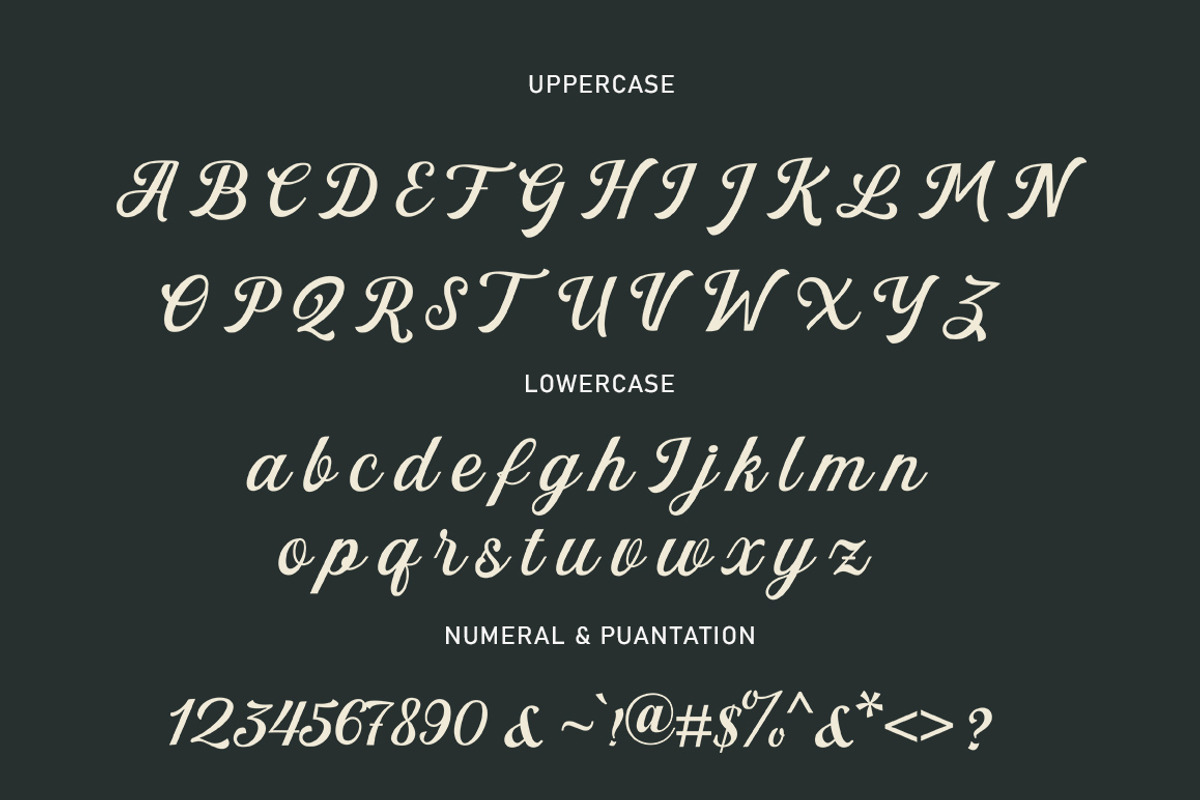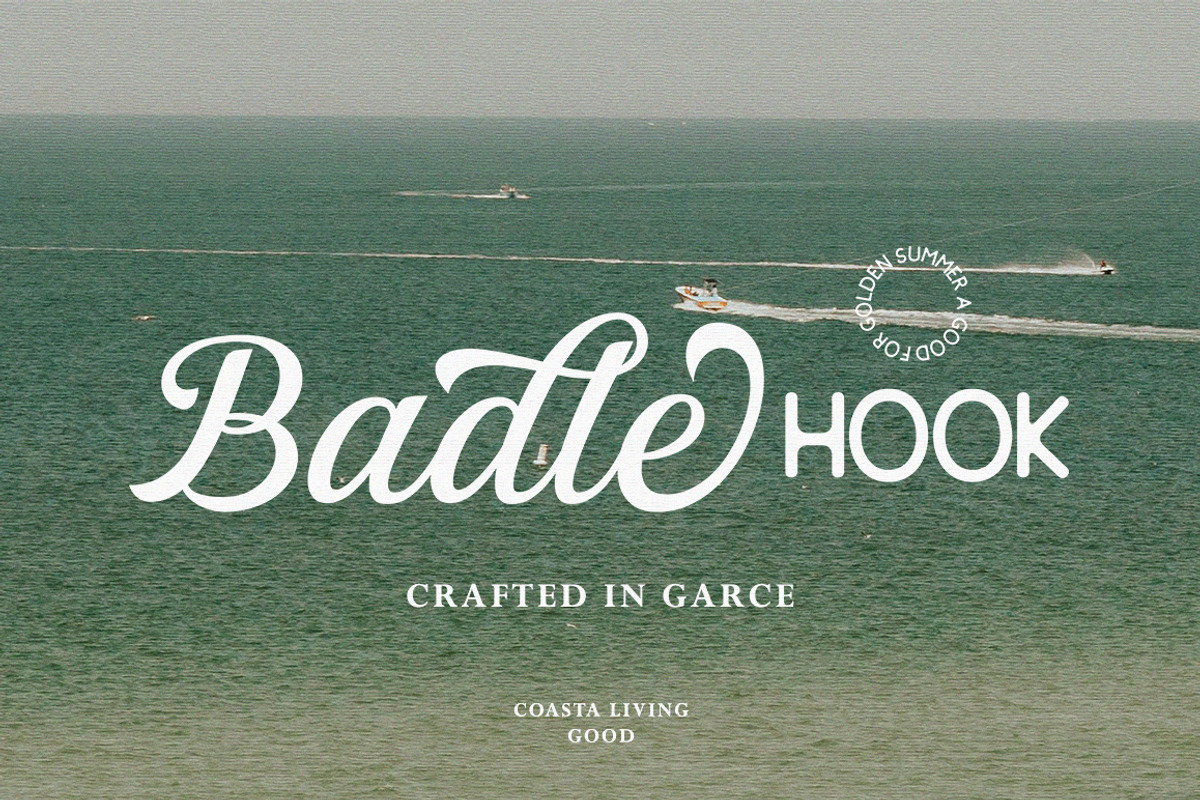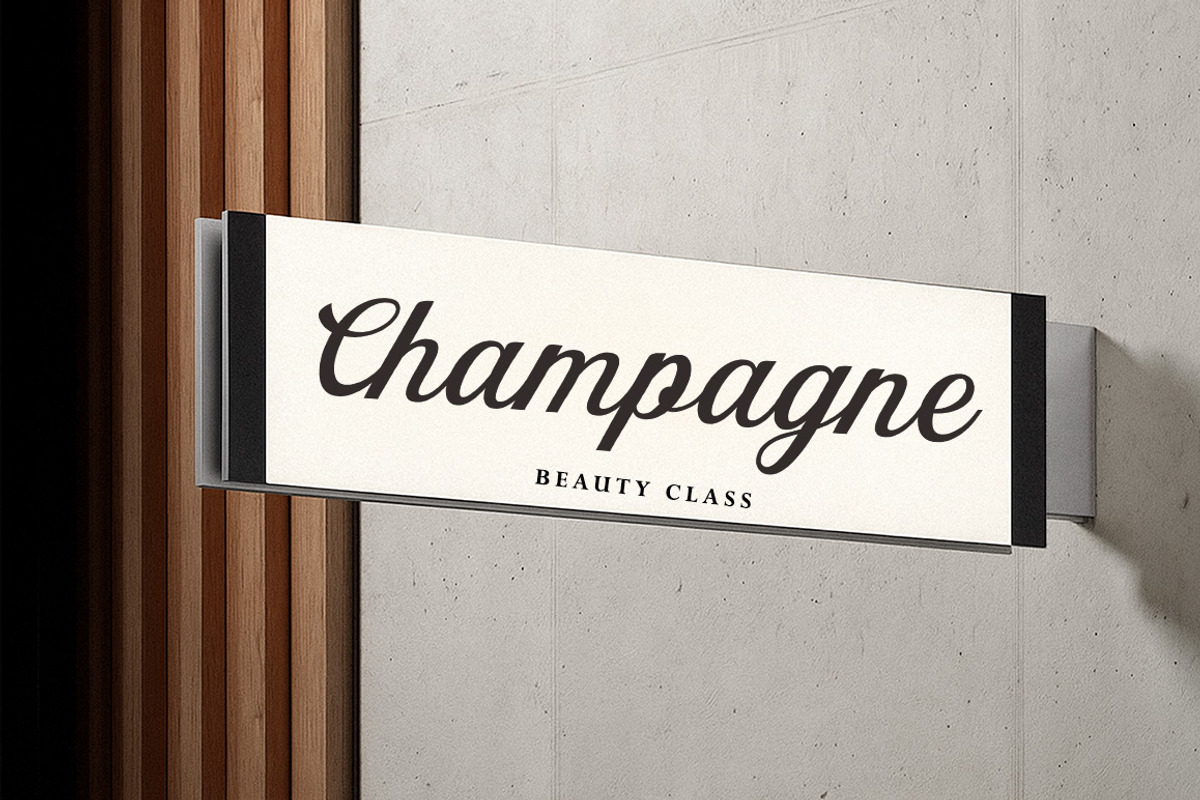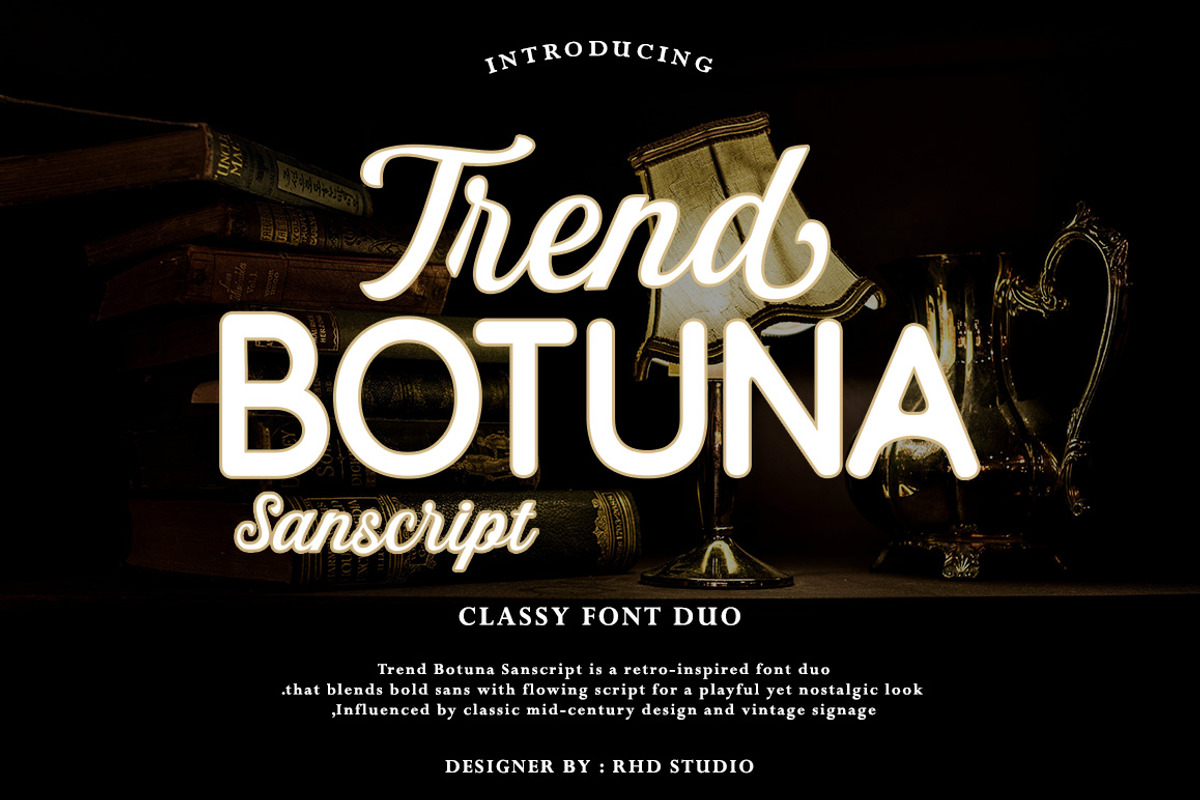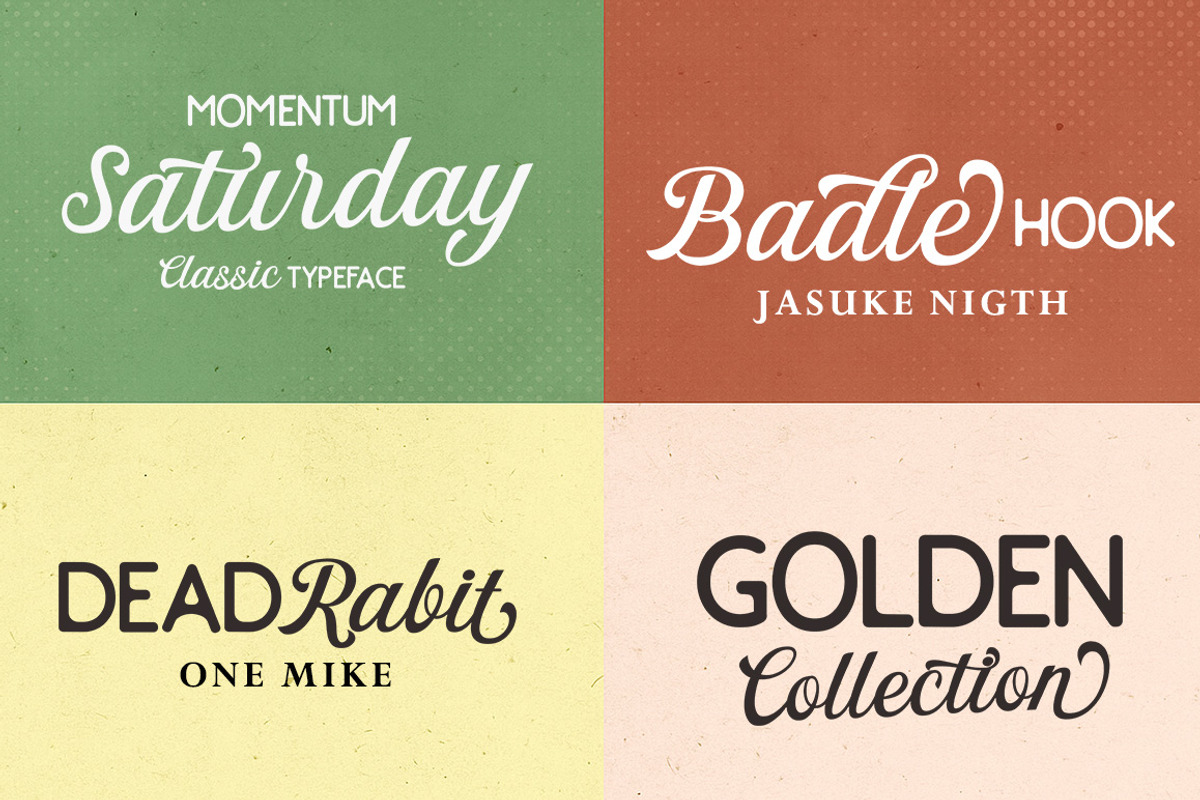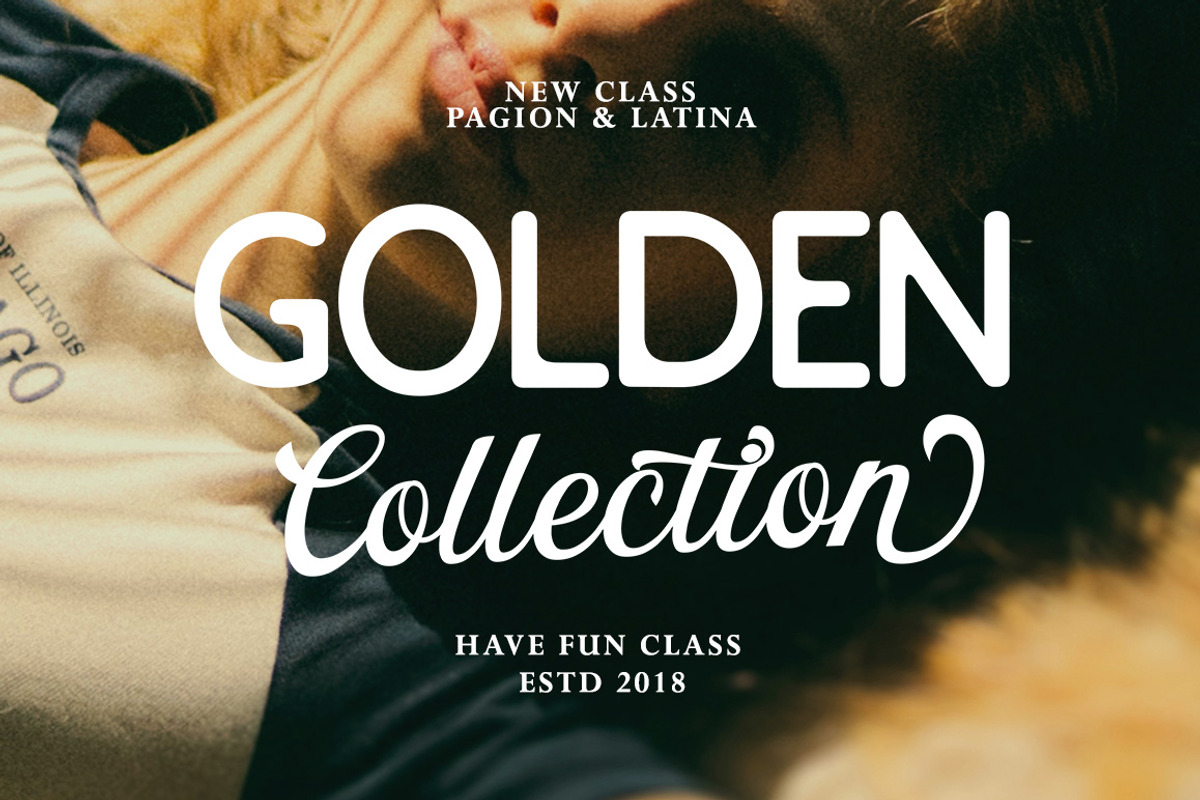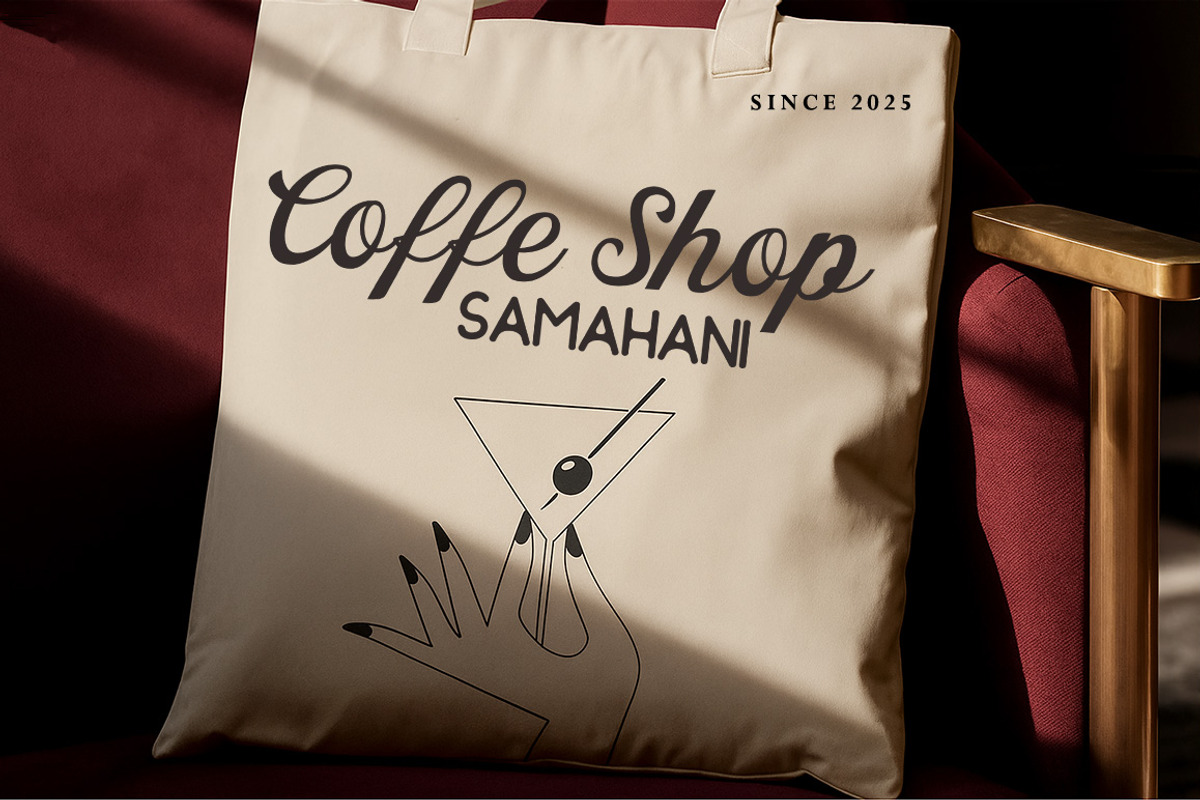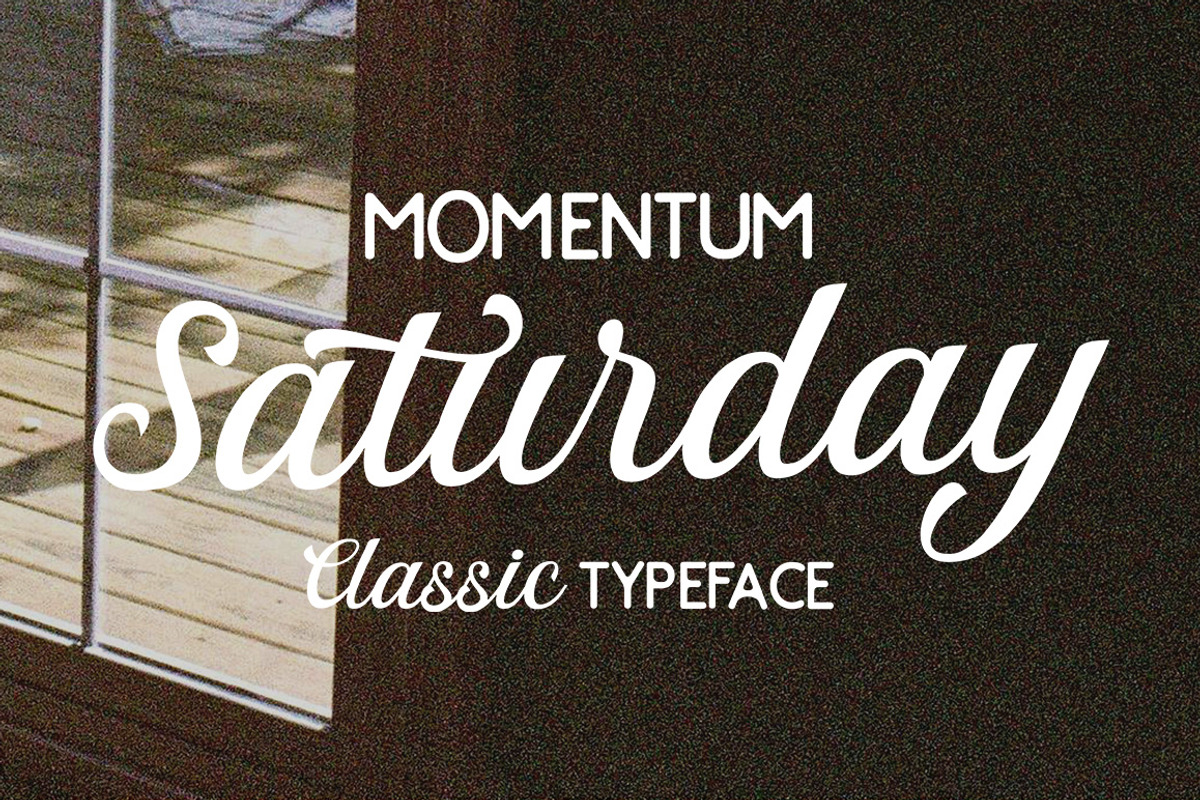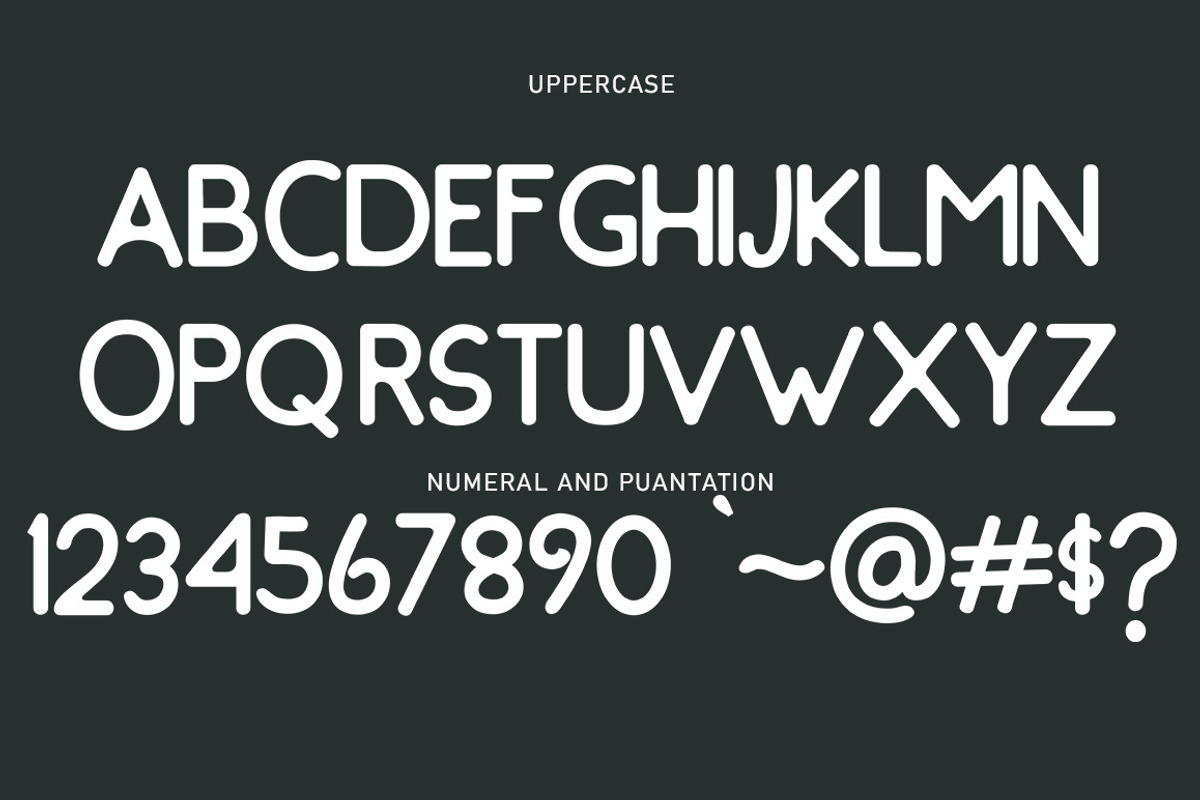
Trend Botuna
Trend Botuna Sanscript is a classy font duo that perfectly blends a bold sans with a flowing script, creating a harmonious balance between strength and elegance. Inspired by mid-century retro design and vintage signage, this font brings a playful yet nostalgic vibe to any project.
Branding & Logos
Posters & Headlines
Editorial Design
Retro & Modern Typography
With its versatile combination, Trend Botuna Sanscript adds a stylish nostalgic touch while keeping your design fresh and impactful.